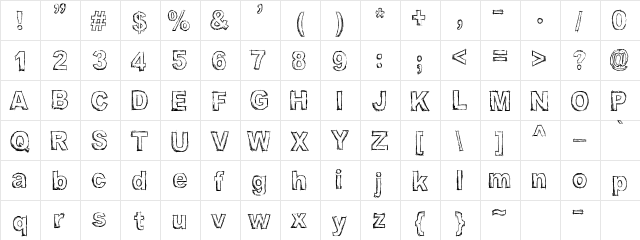
AMC_Sketchy Outines Regular
Design Context for AMC_Sketchy Outines Typeface
AMC_Sketchy Outines takes a measured approach to typography — its balanced proportions and neutral character make it a reliable workhorse for both digital and print work.
Pro Tip: Use AMC_Sketchy Outines in both headline and body roles to test its range before committing to a single application.